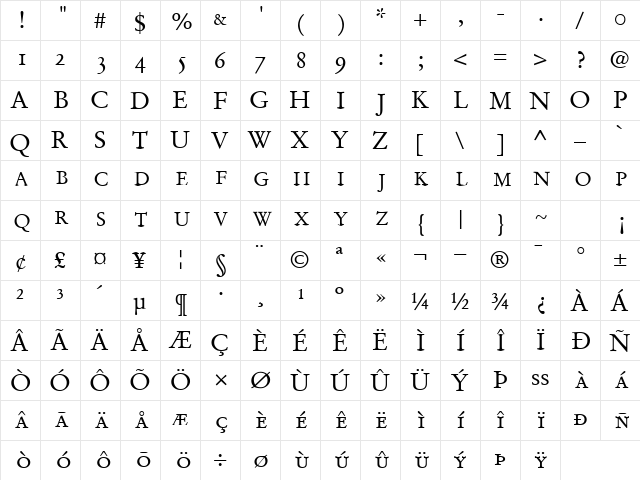
DeutchGaramondOSSSCapsSSK Regular
Design Context for DeutchGaramondOSSSCapsSSK Typeface
DeutchGaramondOSSSCapsSSK is a composed and adaptable typeface that performs quietly and consistently across a wide range of design contexts.
Pro Tip: Use DeutchGaramondOSSSCapsSSK in both headline and body roles to test its range before committing to a single application.